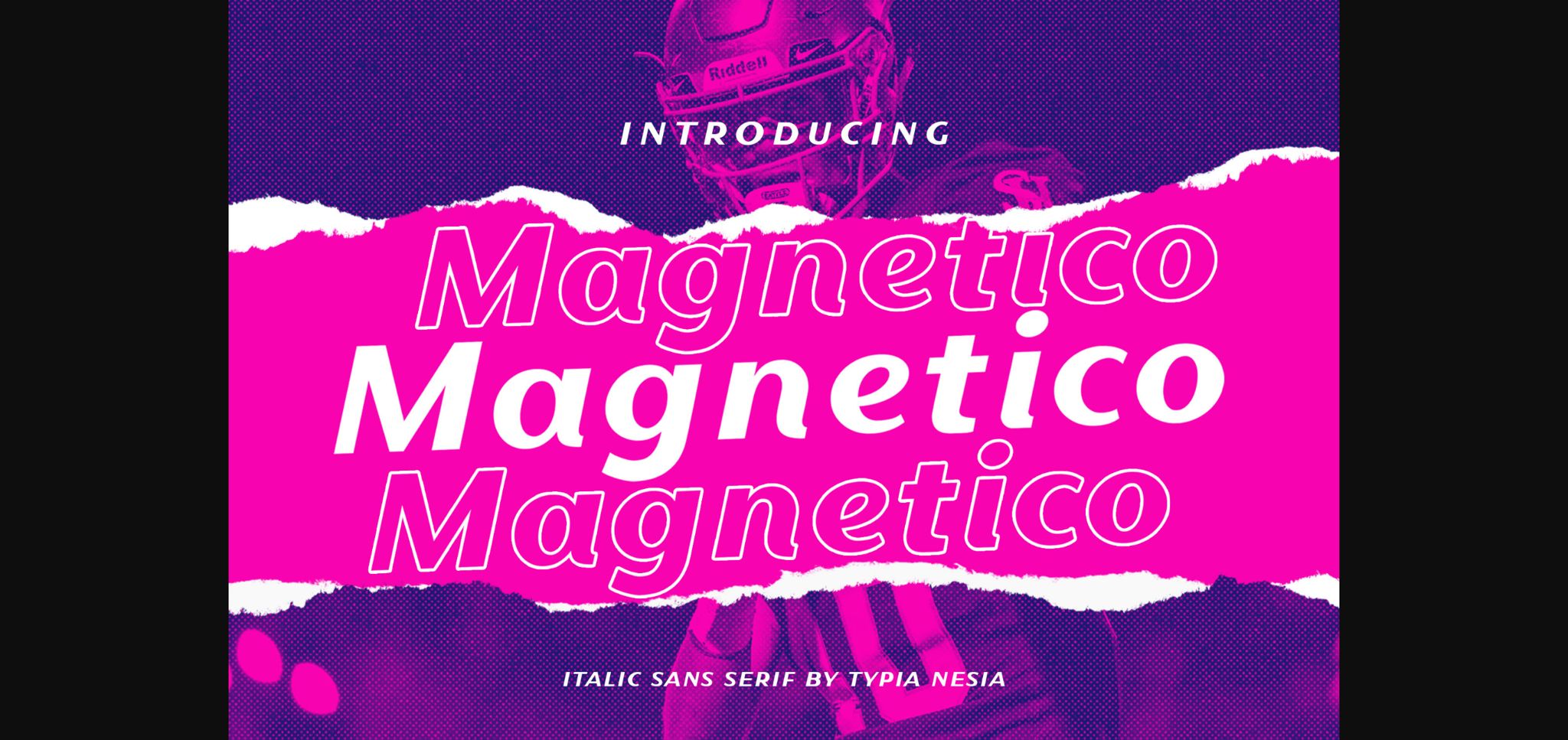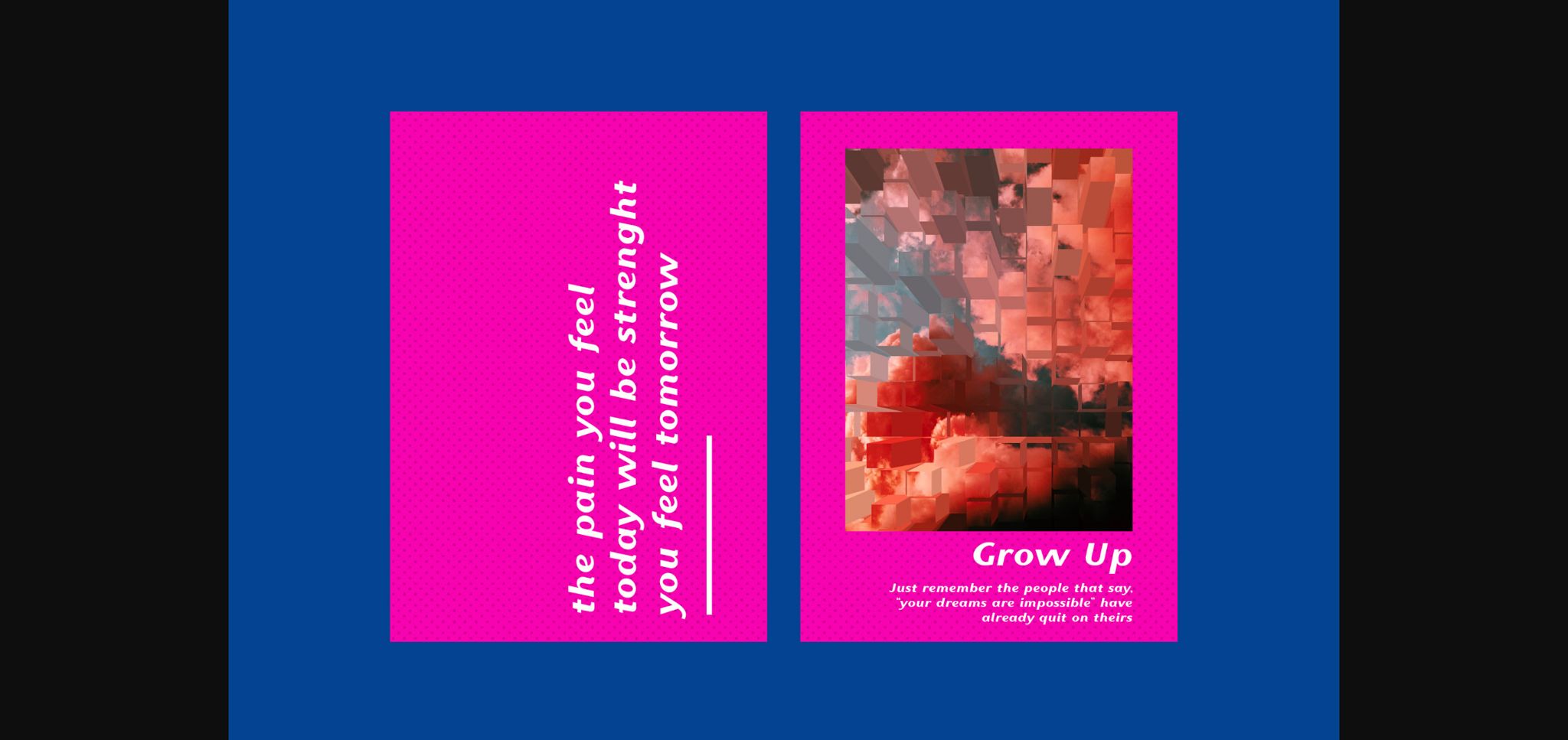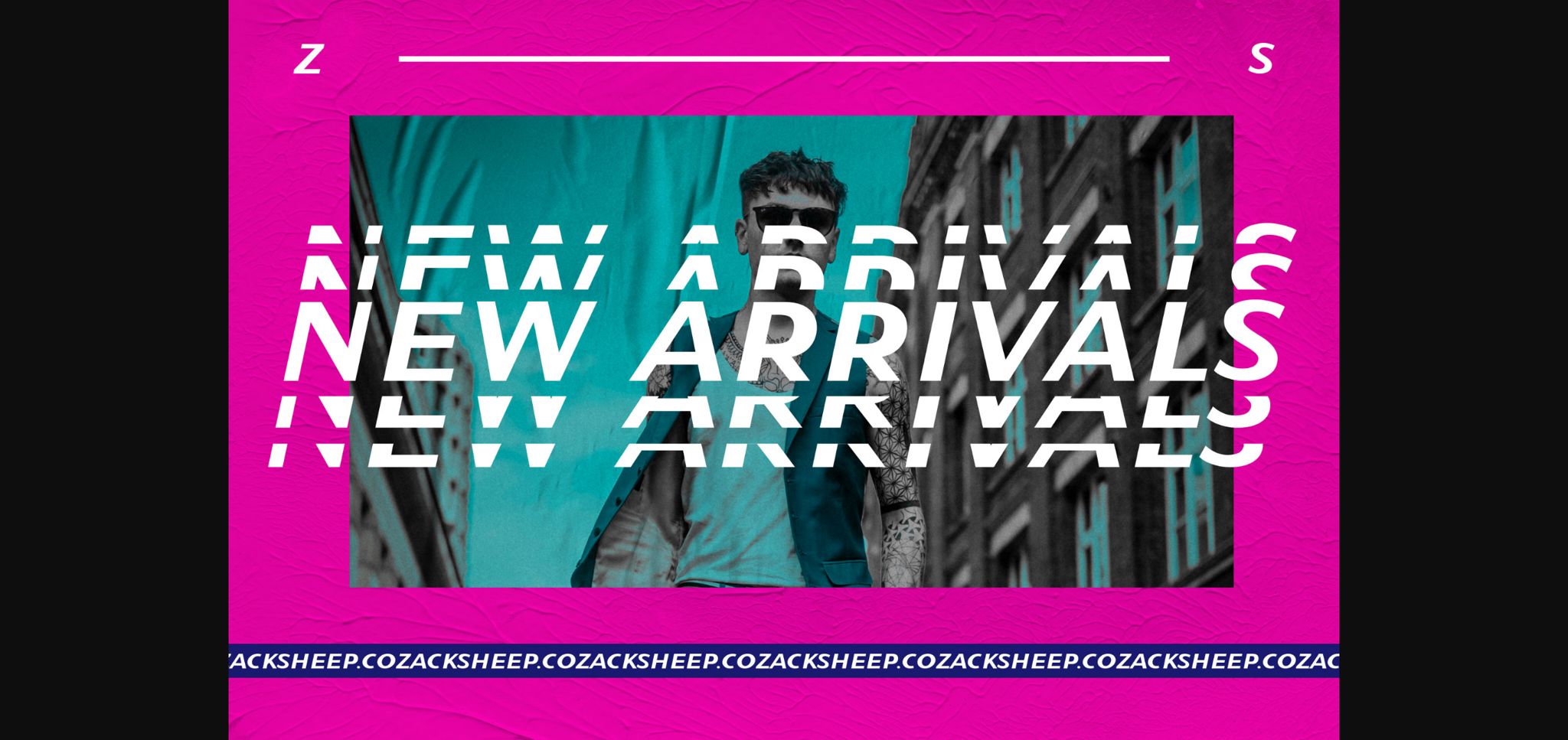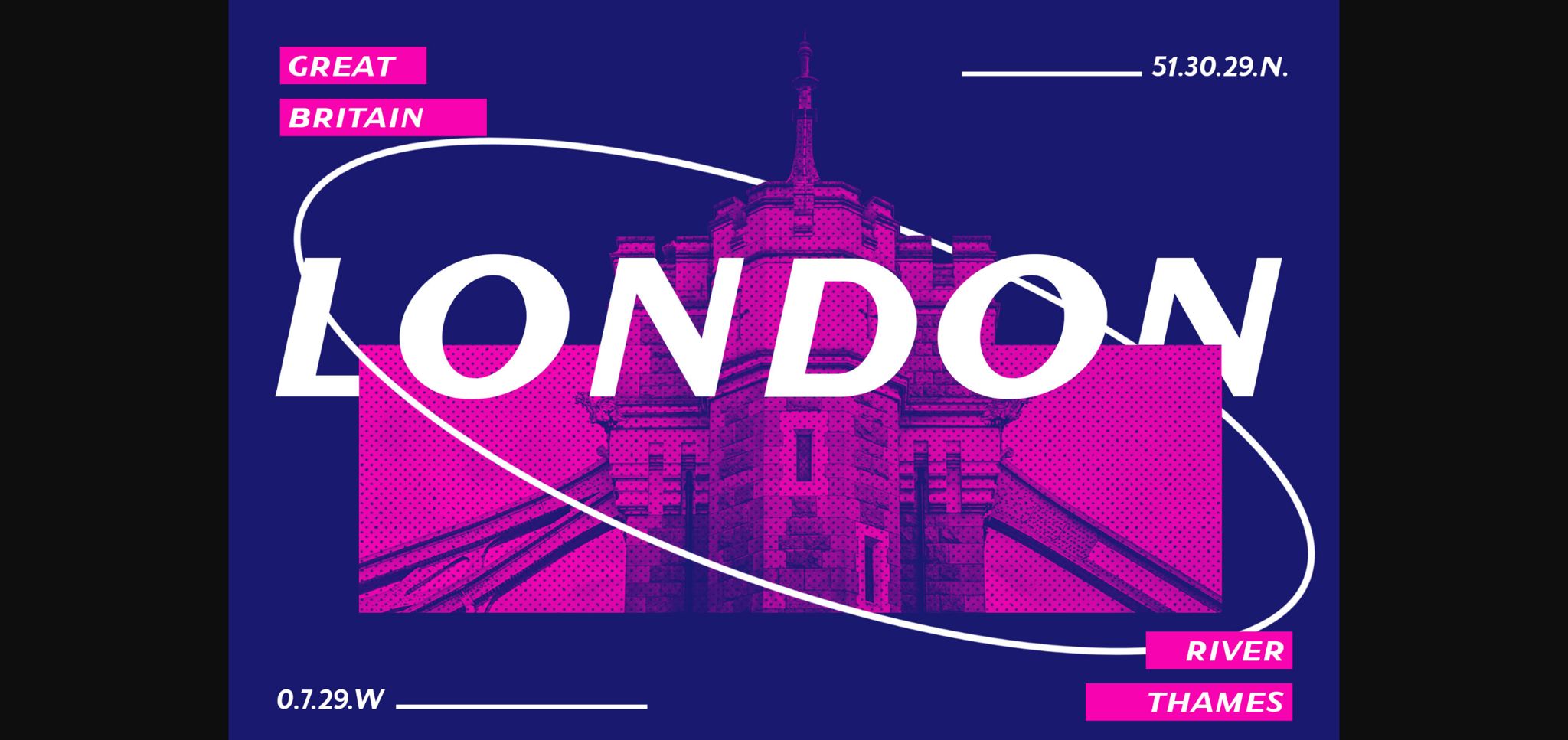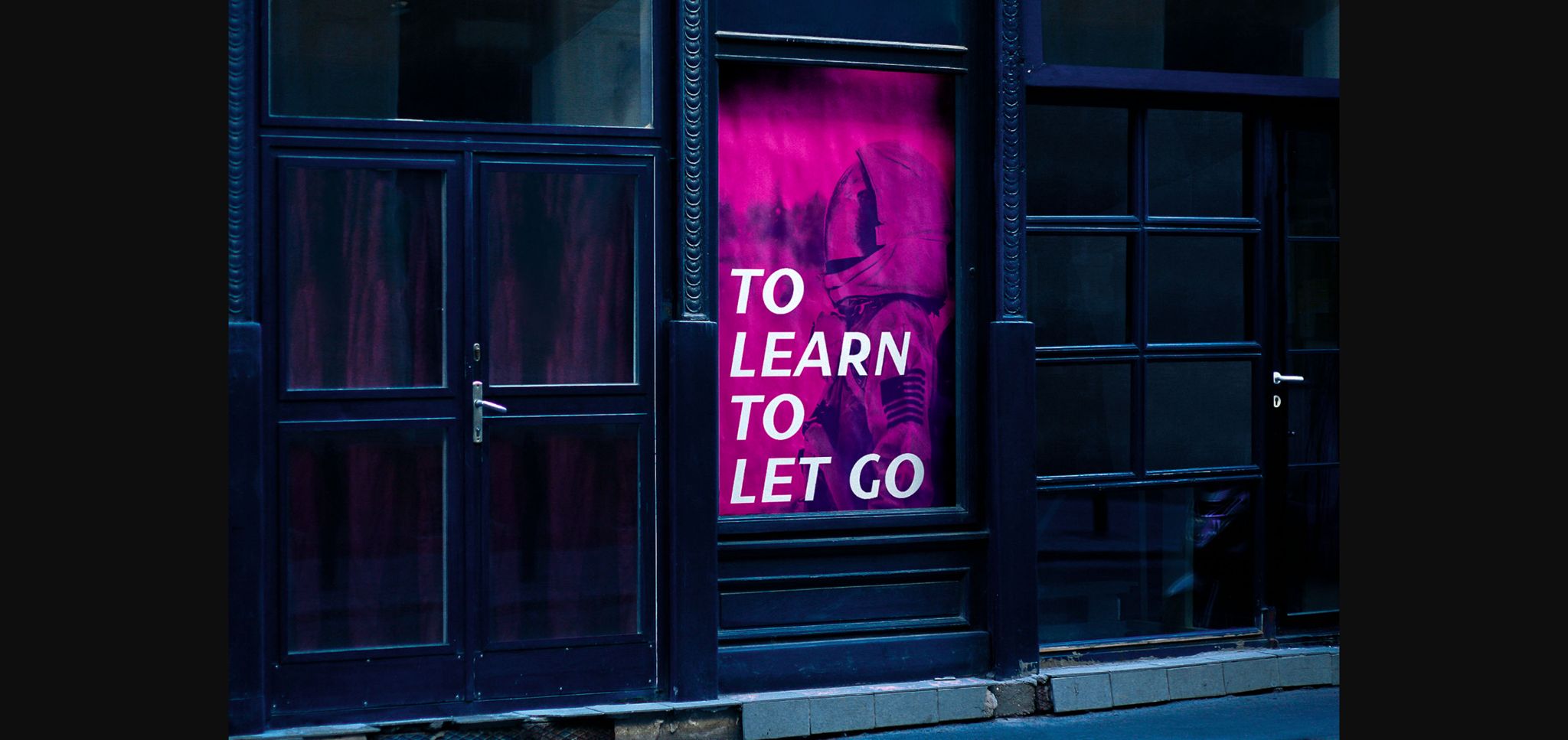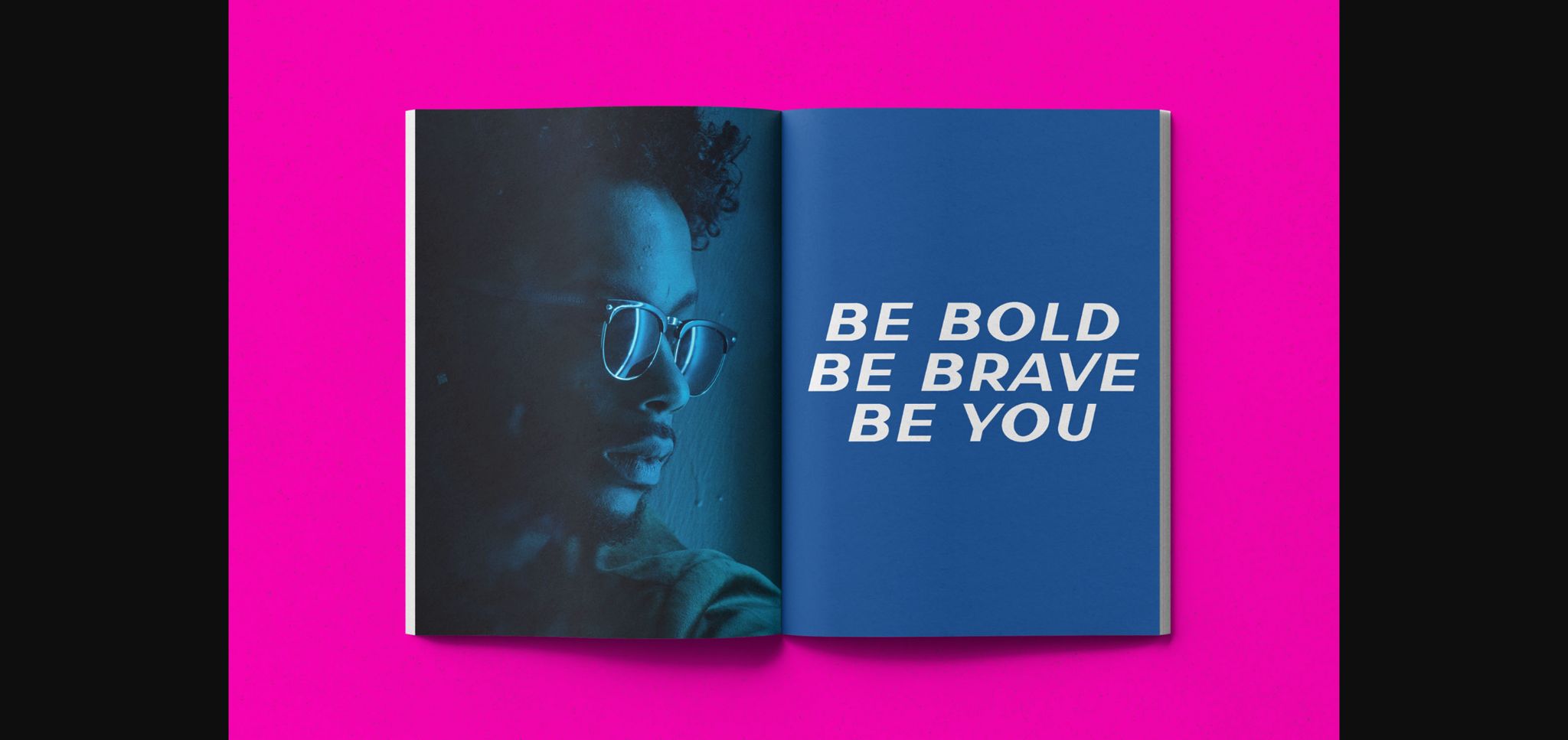
Magnetico Font
About Magnetico Font
Magnetico is an Italic Sans Serif font with a modern vibe. It’s great for logo branding, editorial design, stationery design, sport design, blog design, modern advertising, card invitations, quotes, and much more.